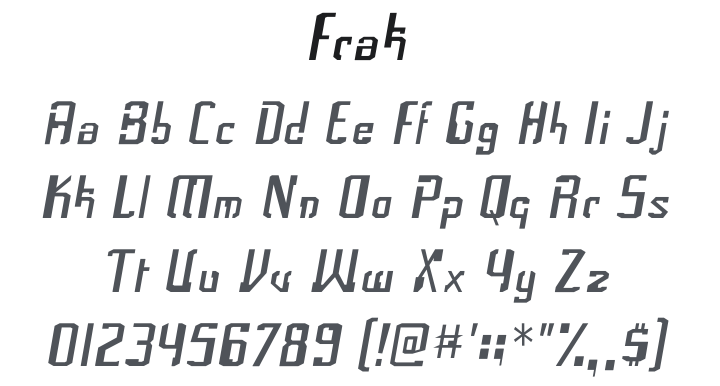
Frak Font
About Frak
Frak is a bold, angular sci-fi display typeface described by its creator as "made from old spaceship parts" — its sharp, incongruous letterforms feel salvaged and reassembled, combining geometric precision with an unpredictable, junkyard-spacecraft energy. It carries a confident, rebellious edge. Great for sci-fi game titles, space-themed branding, dystopian posters, and any headline needing raw futuristic attitude.